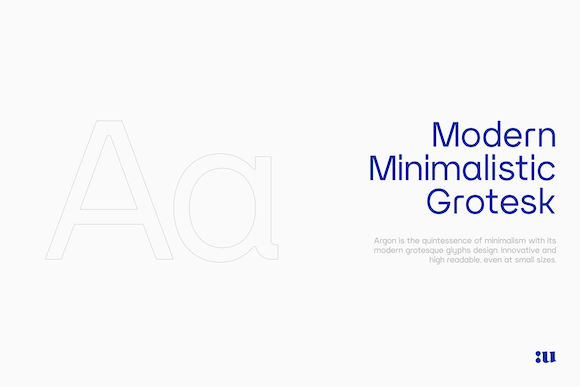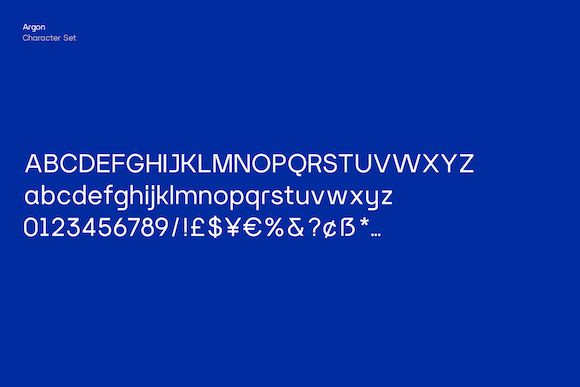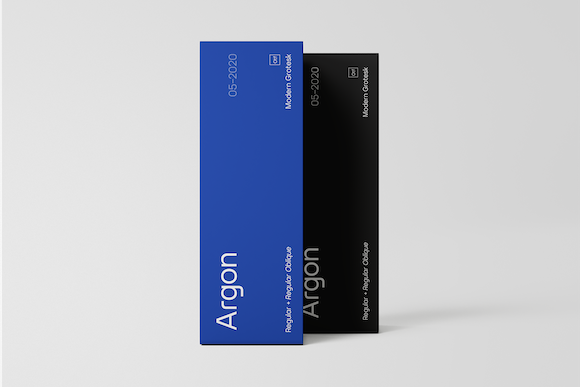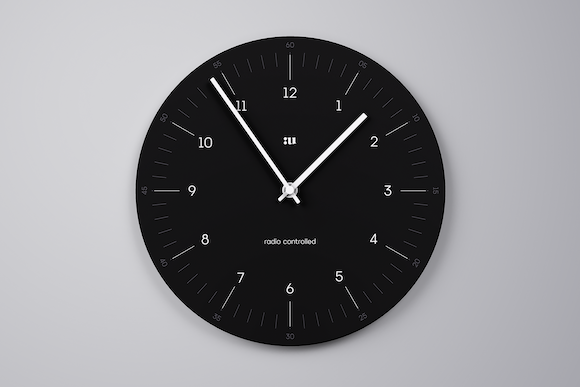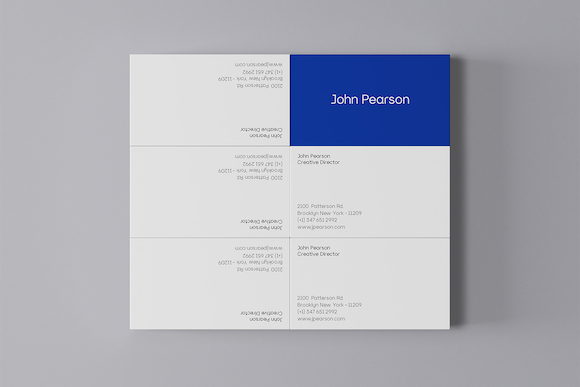
Discover the Clean Elegance of Argon Font
Have you ever found yourself stuck in the middle of a design project, desperately searching for the perfect font to bring your vision to life? You’re not alone. We’ve all been there – pouring over font collections, trying to find that one special something that will elevate our design from good to great. For designers, the right font can be the difference between a project that’s just ‘okay’ and one that truly stands out.
Enter the Argon Font, a simple yet elegant sans serif typeface that’s perfect for both formal and non-formal designs. With its neat and beautiful arrangement of letters, this font is sure to impress. Whether you’re working on a high-end corporate brochure or a casual blog post, the Argon Font is a valuable addition to any designer’s toolkit.
Argon Font Key Features
- Font Family: Argon is a modern sans-serif font family designed for digital interfaces.
- Character Count: The Argon font family includes over 800 glyphs, covering a wide range of languages and characters.
- Unique Characteristics: Argon features a clean, geometric design with subtle rounded corners, making it suitable for modern digital interfaces, branding, and packaging.
- Font Sizes: Available in 4 different weights: Light, Regular, Medium, and Bold, allowing for flexible typographic styling.
Designer Review: Argon Font
Overall, I think Argon Font is a solid choice for designers looking for a clean and modern sans-serif font. Here are some things that stand out to me:
- ✨ Argon Font’s x-height is one of its strongest features. The font has a great balance between vertical and horizontal spacing, making it easy to read, even at small font sizes.
- ✨ The font’s geometric shape and clean lines make it a great choice for digital interfaces and modern branding.
- ✨ Argon Font has a wide range of weights and styles, making it easy to find the perfect fit for your design project.
However, there are a few limitations that I think are worth noting:
- ⚠️ Argon Font may not be the best choice for body text in longer documents or articles. While it’s great for headlines and digital interfaces, it can feel a bit fatiguing to read in large quantities.
- ⚠️ The font’s bold weight can feel a bit over-emphasized, which may not be suitable for all design projects.
Overall, I think Argon Font is a great choice for designers who need a modern and clean sans-serif font. While it may have some limitations, it’s a solid foundation for a wide range of design projects.
Tips for Getting the Most Out of Argon Font
Here are some tips for getting the most out of Argon font:
- Use Argon font for titles and headings to create a professional and modern look.
- Experiment with different font sizes and styles to add emphasis and hierarchy to your text.
- Combine Argon font with other fonts to create a unique and visually appealing typography.
Argon font is commonly used for:
- Business and corporate materials (e.g. brochures, reports, presentations).
- Web design and development (e.g. website headers,